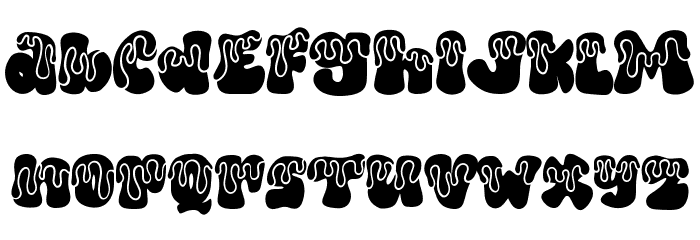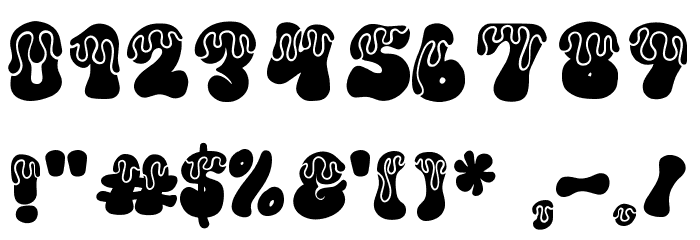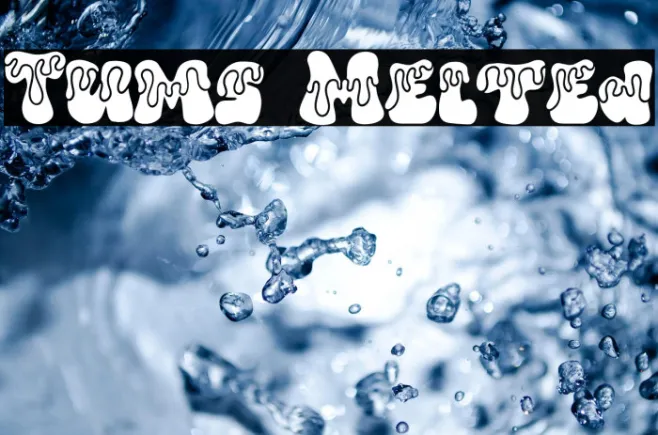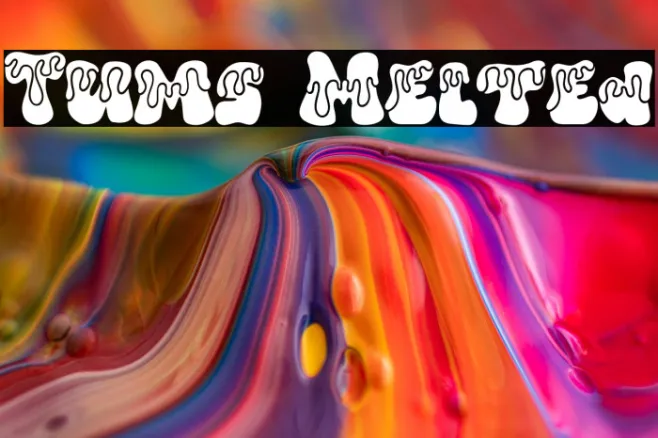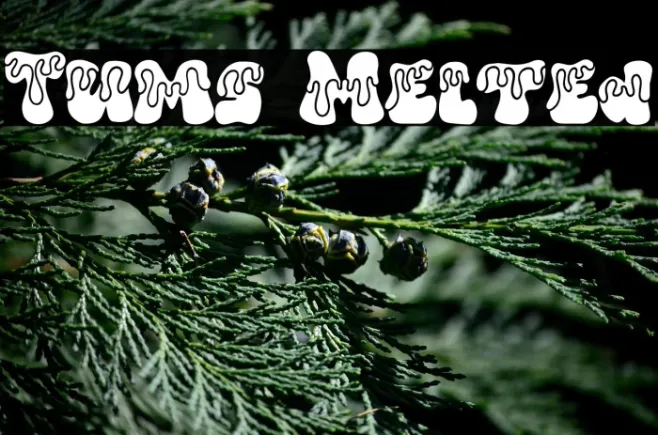
Tums Melted Font
This playful and whimsical font features a unique melted effect, giving the impression of letters dripping or oozing. The bold, rounded characters are designed with a high level of creativity, making them stand out with their distinctive, fluid-like appearance. Each letter is crafted with a thick, consistent stroke that maintains a cohesive look across the entire set. The font's design is both eye-catching and fun, making it ideal for projects that require a touch of humor or creativity. Its boldness ensures readability while the melted effect adds a layer of visual interest.
A bold, playful font with a unique melted effect, perfect for creative projects.
- Font: Tums Melted
- Proposed Projects: Ideal for children's book covers, playful branding, party invitations, and creative posters.